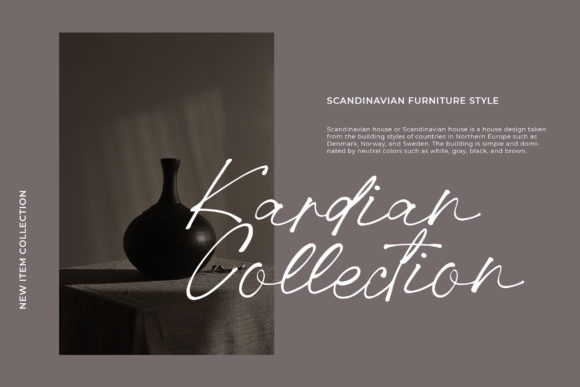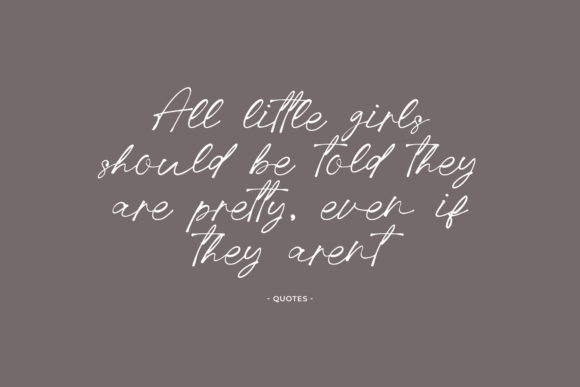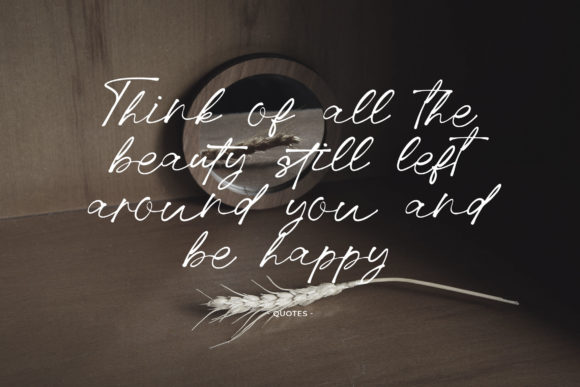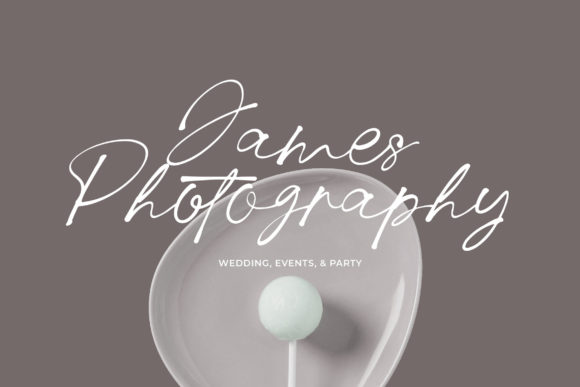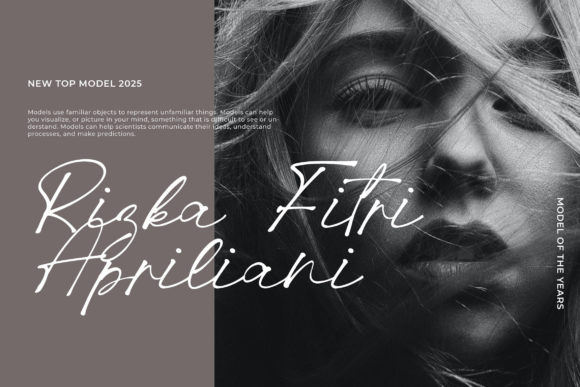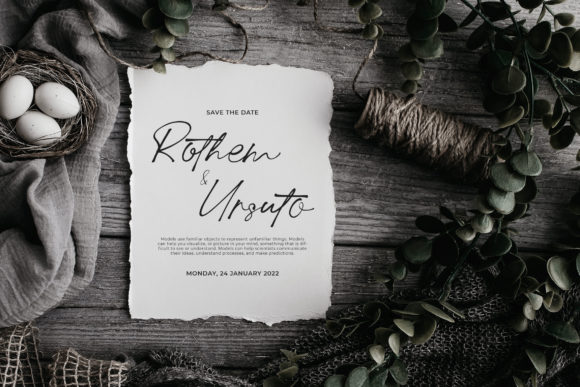
Introduction to Pellegrie Signature Font
Pellegrie Signature is a fashionable and sophisticated script font with its own unique curves and an elegant inky flow.
Its classy and modern look makes it a fantastic choice for fashion, signature, album covers logos, branding, magazines, social media posts, advertisement, and many more designs .